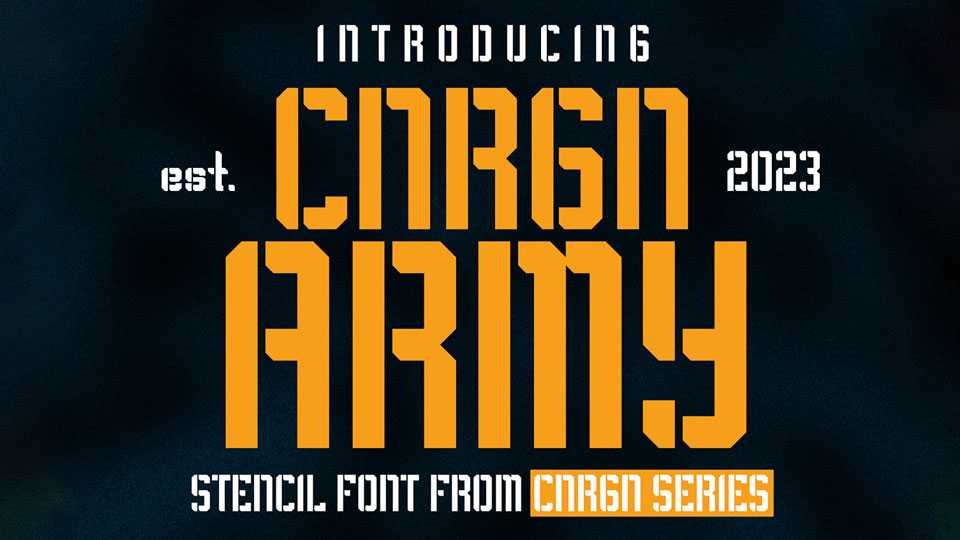
CNRGN Army Font › Fontesk – Download Grátis
Download vrsty MILITA font, a bold display typeface inspired by military typography. It works great for all kinds of branding projects, advertising, websites, packaging, and posters and anywhere you need strong communication.
Designer: Brylle Conrad Co